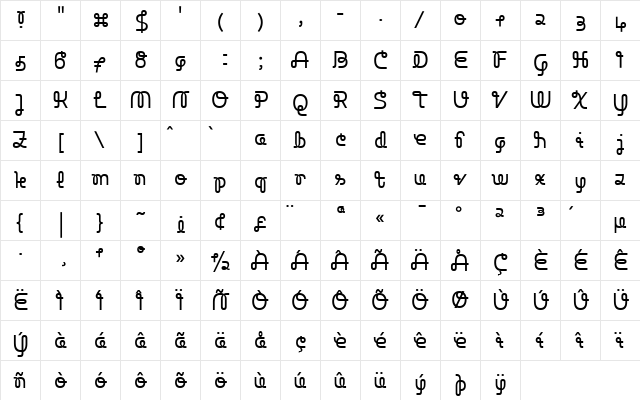
Polymorph South Regular
Design Context for Polymorph South Typeface
Polymorph South is a composed and adaptable typeface that performs quietly and consistently across a wide range of design contexts.